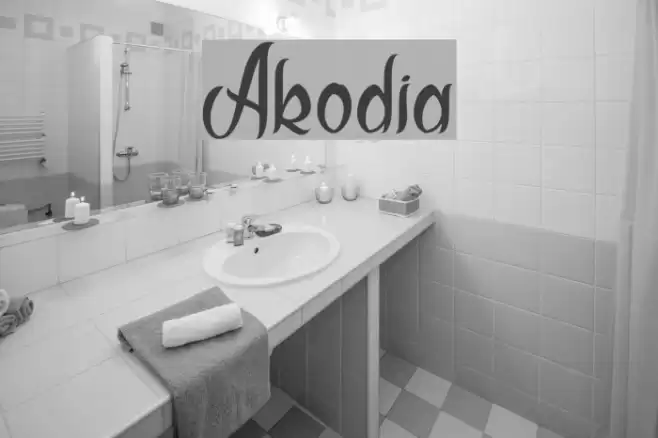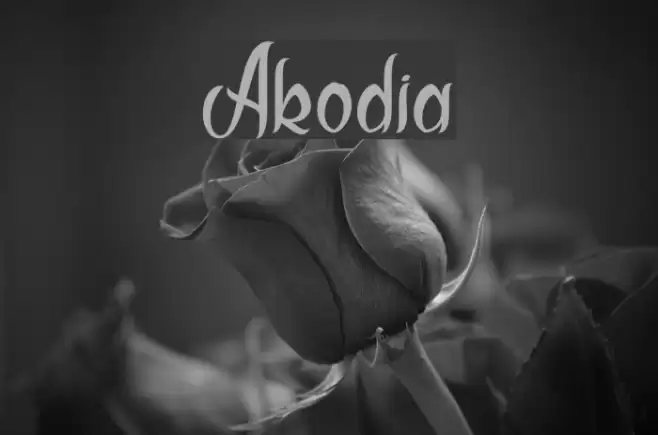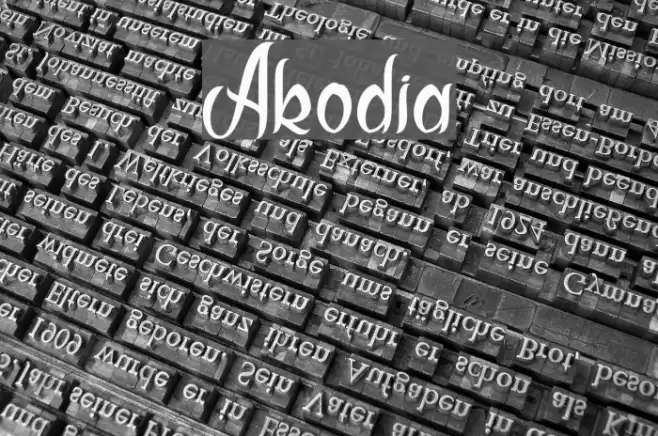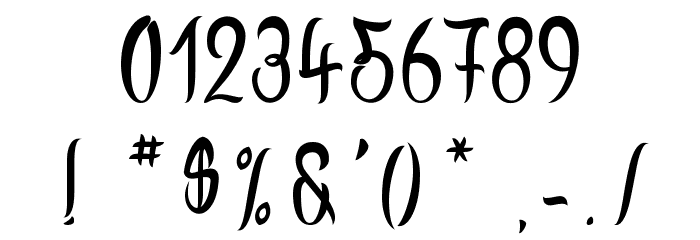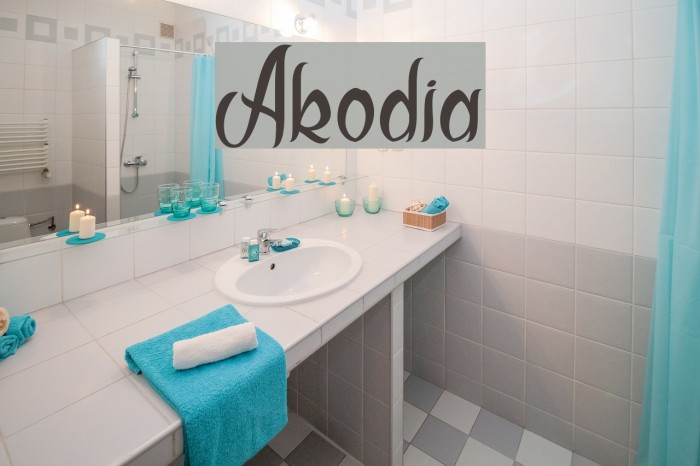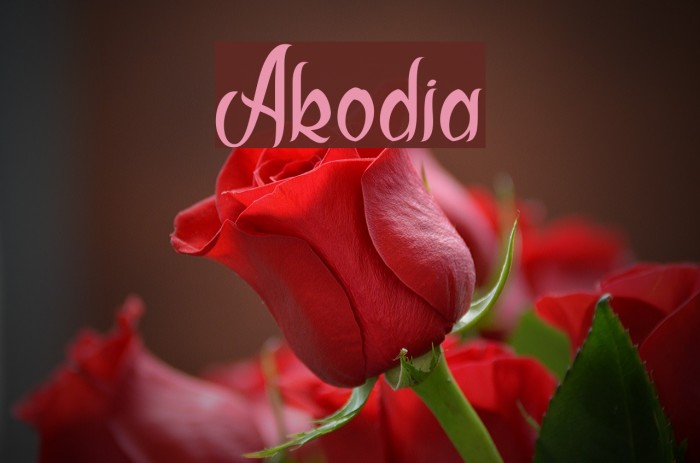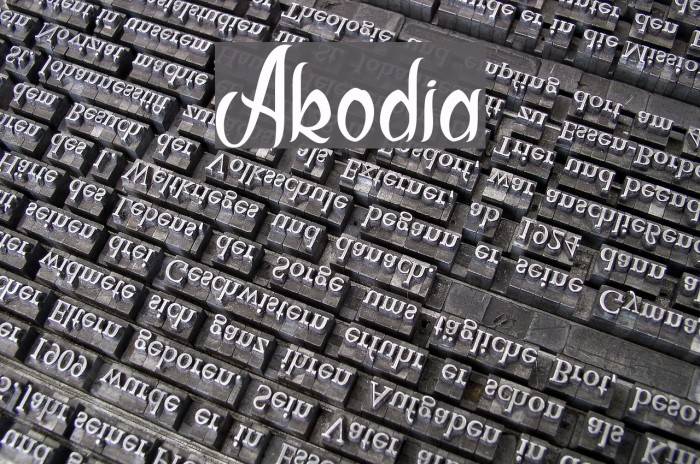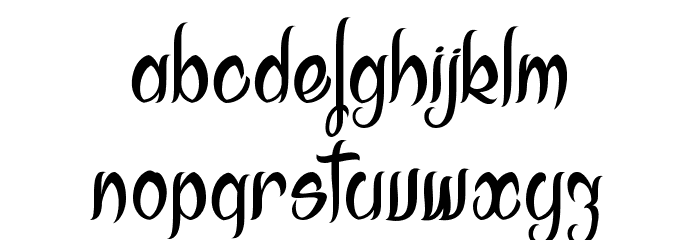
Akodia Font
Akodia Description
This font features a decorative and artistic style with a unique flair. The uppercase letters are characterized by elegant curves and swashes, giving them a dynamic and flowing appearance. The lowercase letters maintain a similar style, with a slightly more subdued flair, ensuring readability while retaining the decorative essence. The numerals are consistent with the overall design, featuring subtle curves and artistic touches. Special characters are crafted with the same attention to detail, making them suitable for creative and expressive typography projects. The font's overall appearance is both bold and stylish, making it ideal for eye-catching designs.
A decorative and artistic font with elegant curves and swashes from Uncategorized fonts.